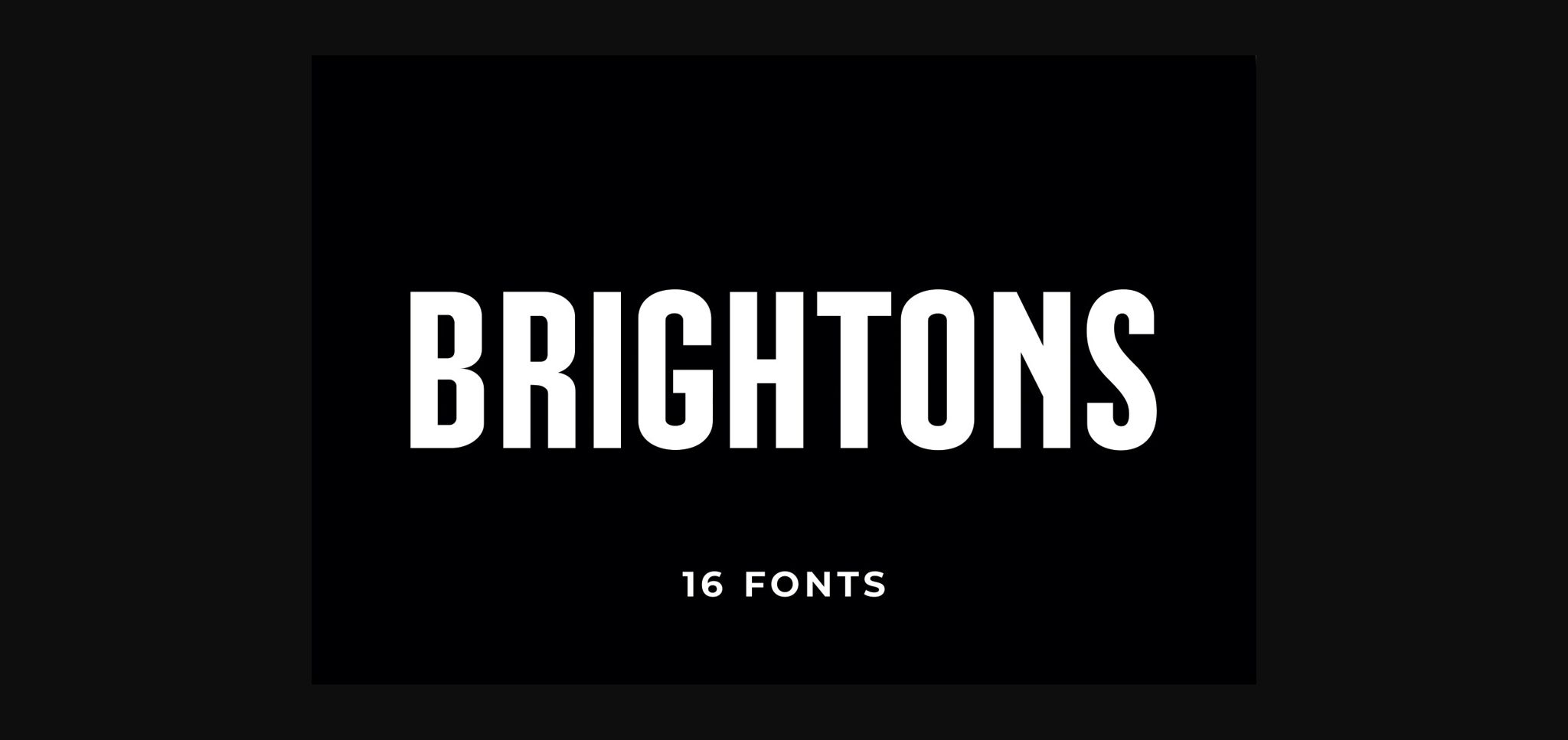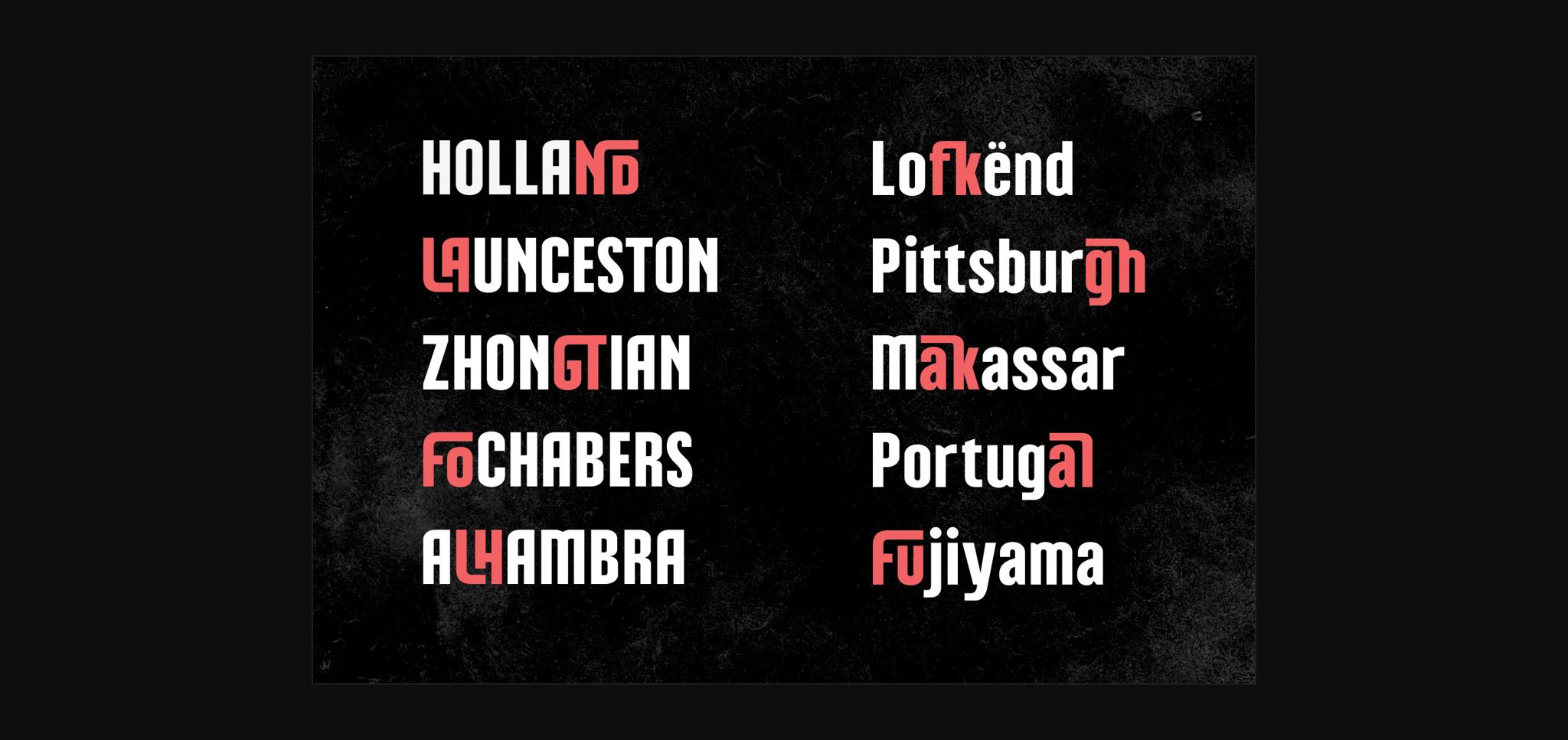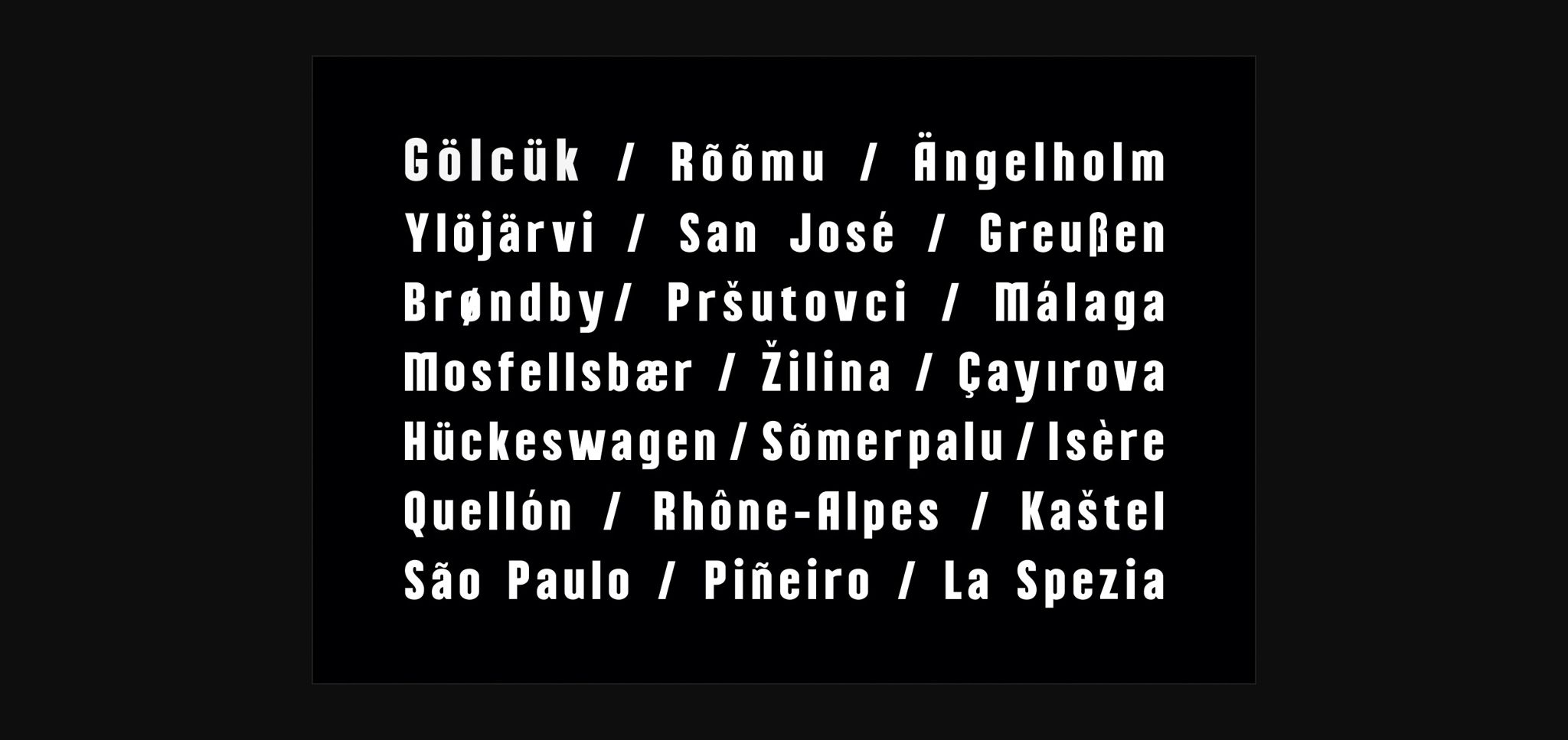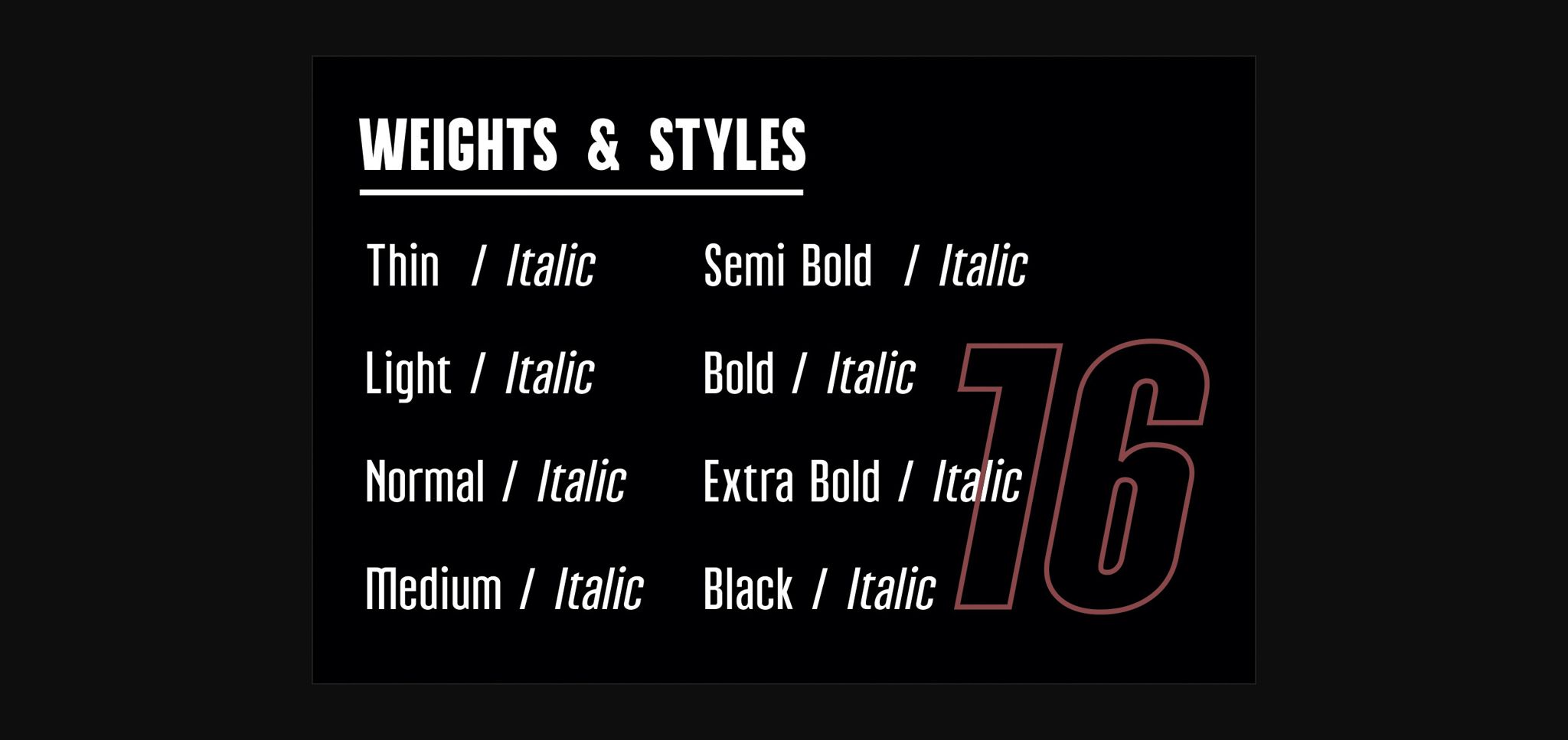
Brightons Font
About Brightons Font
Brightons, a modern, professional sans-serif font, exudes confidence and clarity in every curve and line. Its sleek, geometric design is tailored for contemporary designs, offering excellent readability across various media. With a touch of sophistication, Brightons elevates any project, making it perfect for branding, editorial, and digital applications.